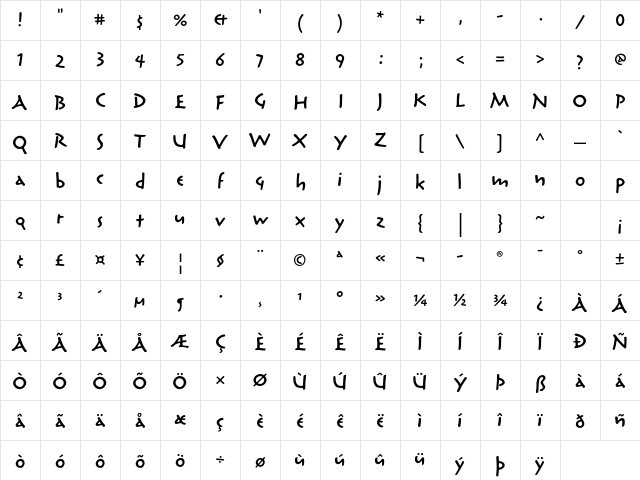
Reliq Std Semibold ExtraActive
Style: Semibold ExtraActive
Designer: Carl Crossgrove
Design Context for Reliq Std
Reliq Std is a composed and adaptable typeface that performs quietly and consistently across a wide range of design contexts. Its bold stroke weight gives it real presence on the page.